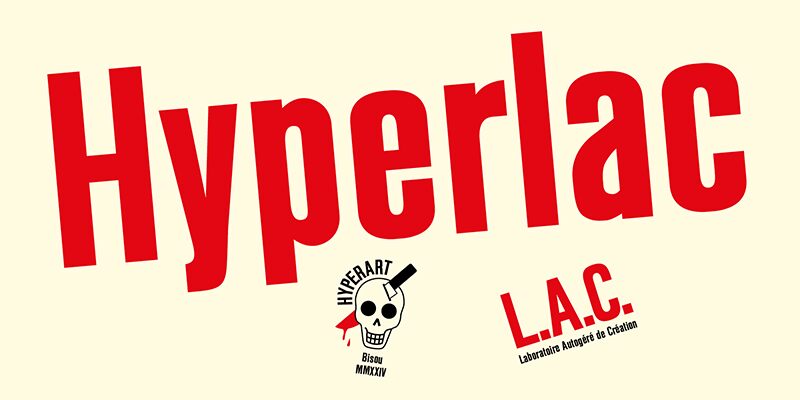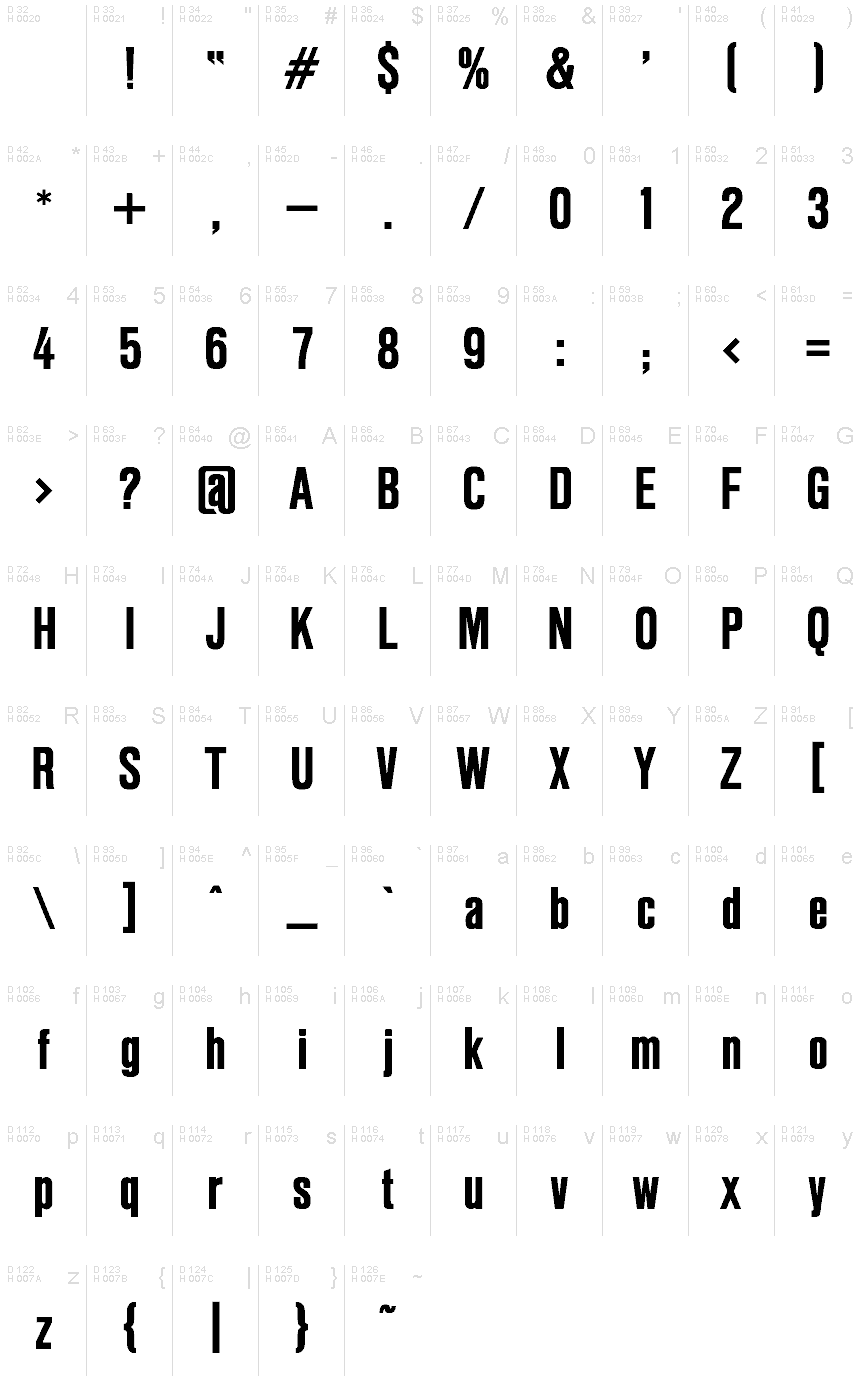
Hyperlac
Hyperlac font by Bisou is a condensed sans serif with a strong modern appearance. It combines assertive geometric shapes with an overall light yet versatile style which allows it to fit in every purpose. Further characteristics include excellent readability, prominent letters, dominance in any context along with a perfect balance between forms and empty space.
Free for all use cases, there are many Hyperlac uses you want to take advantage off such as logotypes, posters, signage and traffic signs or prints. Other ideas include packaging outlines and descriptions; decorative books, magazines or newspaper’s titles; app icons or print layouts-related purposes.